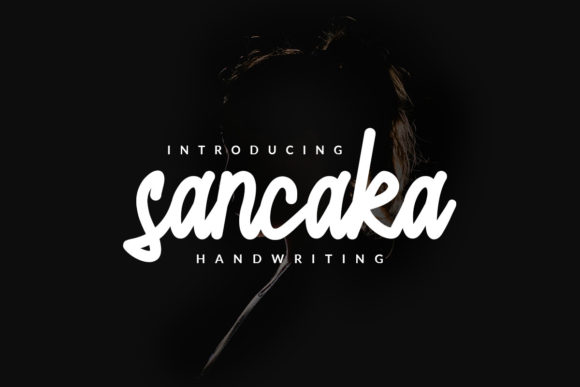
Prepare to be captivated by Sancaka, an exquisite script font that weaves a tapestry of elegance and sophistication. Each letter dances across the page with a delicate grace, exuding an air of timeless charm.
Crafted with meticulous care, Sancaka is the perfect choice for those who seek to elevate their designs with a touch of unparalleled beauty and freshness. Whether you're writing a heartfelt speech, composing an enchanting invitation, or simply adding a dash of allure to your creative endeavors, Sancaka stands ready to transform your words into works of art.
With its PUA encoding, unlocking the full potential of Sancaka's glyphs and ligatures is a breeze. Effortlessly access a treasure trove of stunning alternatives and embellishments that will add depth and dimension to your creations.
Indulge in the allure of Sancaka and watch as your words blossom into a symphony of visual delight. Each stroke, each curve, and every intricate detail has been meticulously designed to captivate and inspire.
Step into the realm of Sancaka, where elegance and imagination intertwine, and embark on a journey of creative enchantment. Let this extraordinary font guide you towards designs that leave an unforgettable impression.